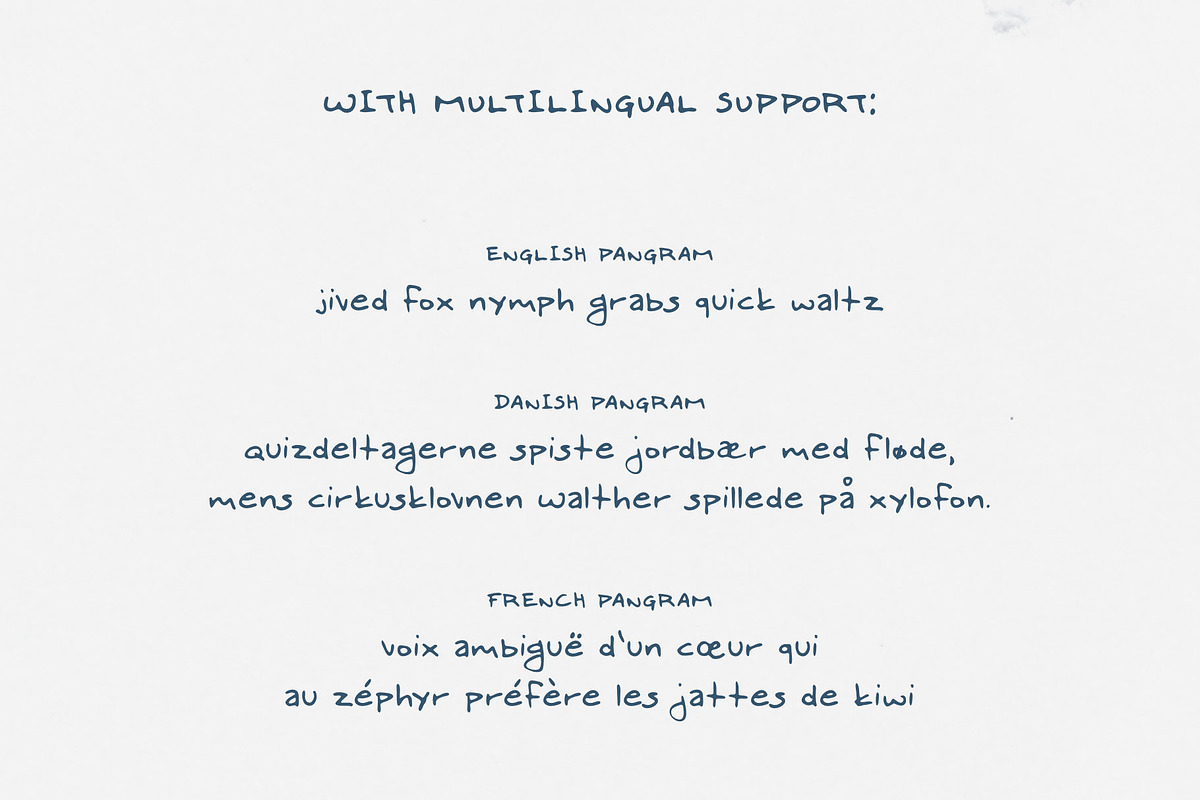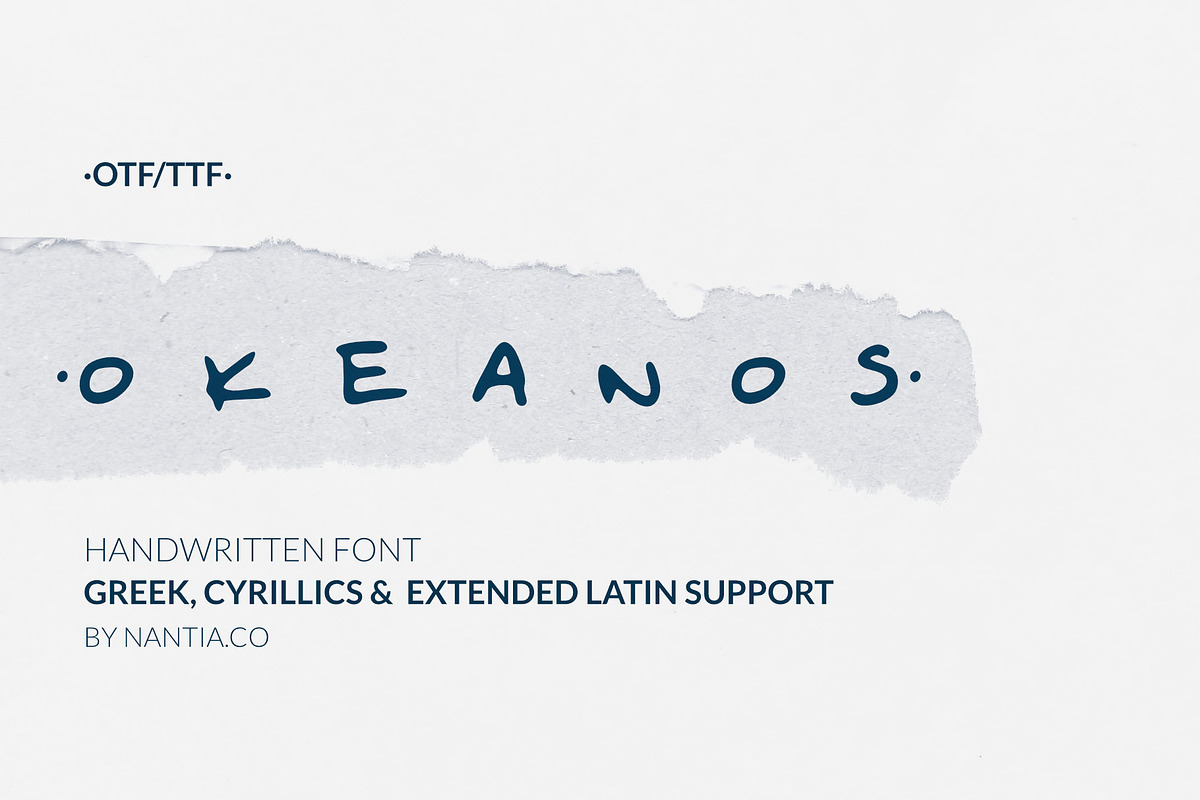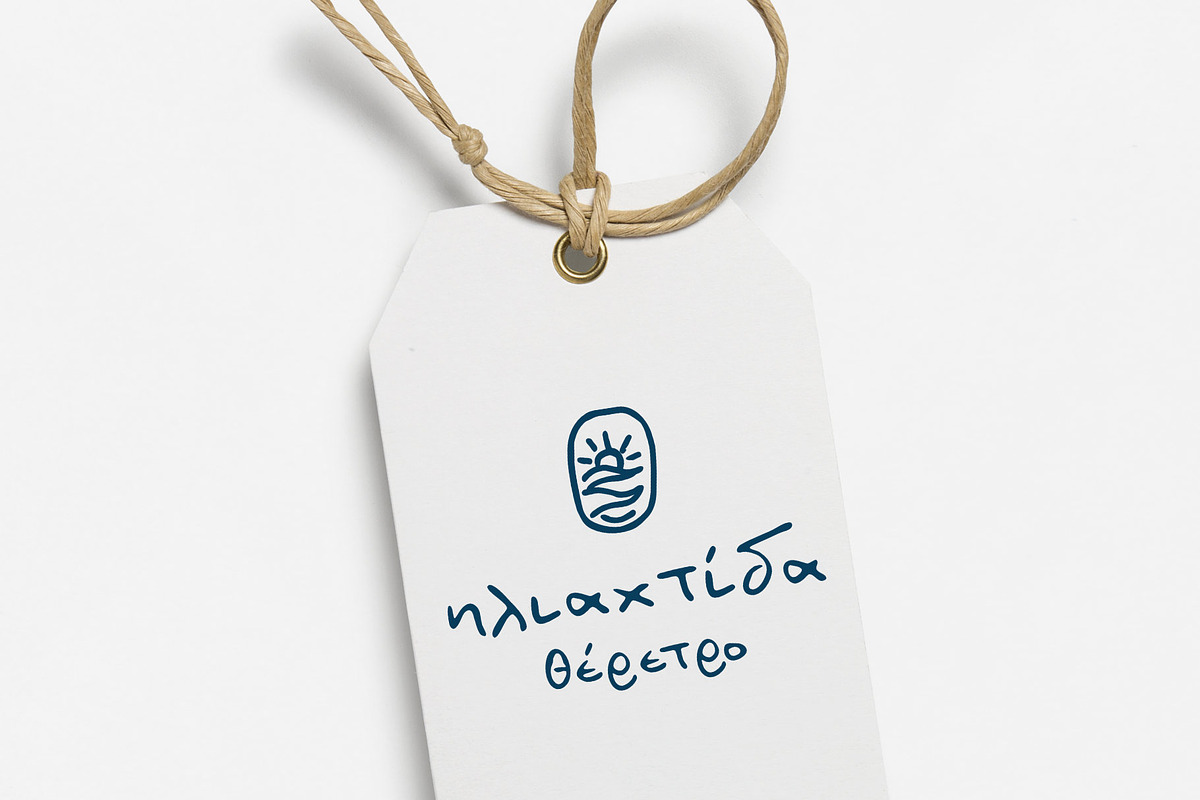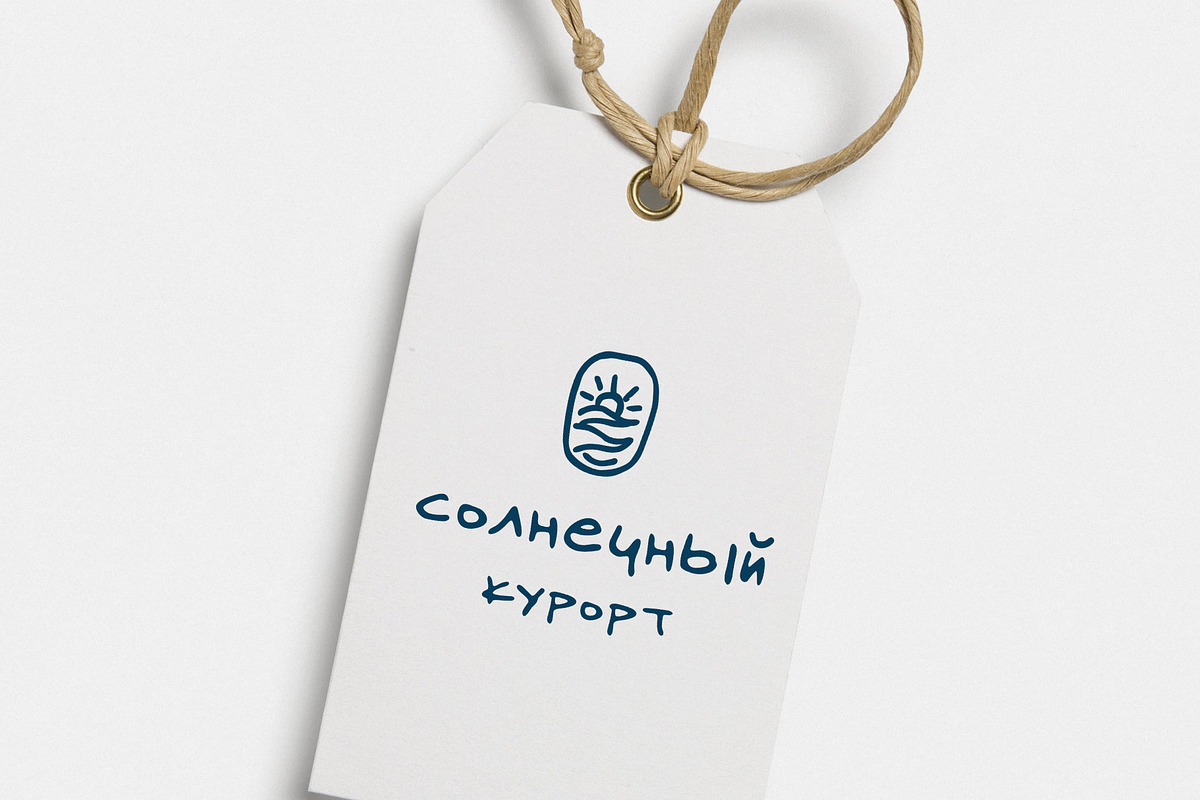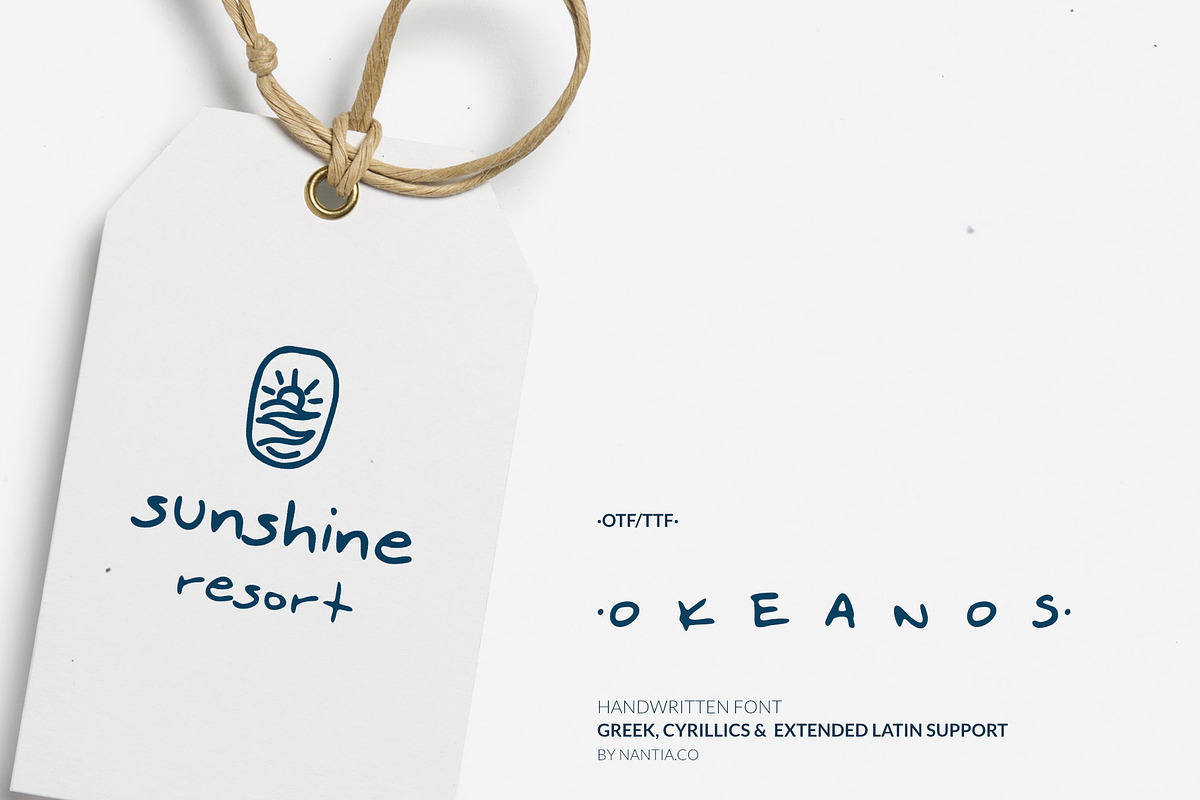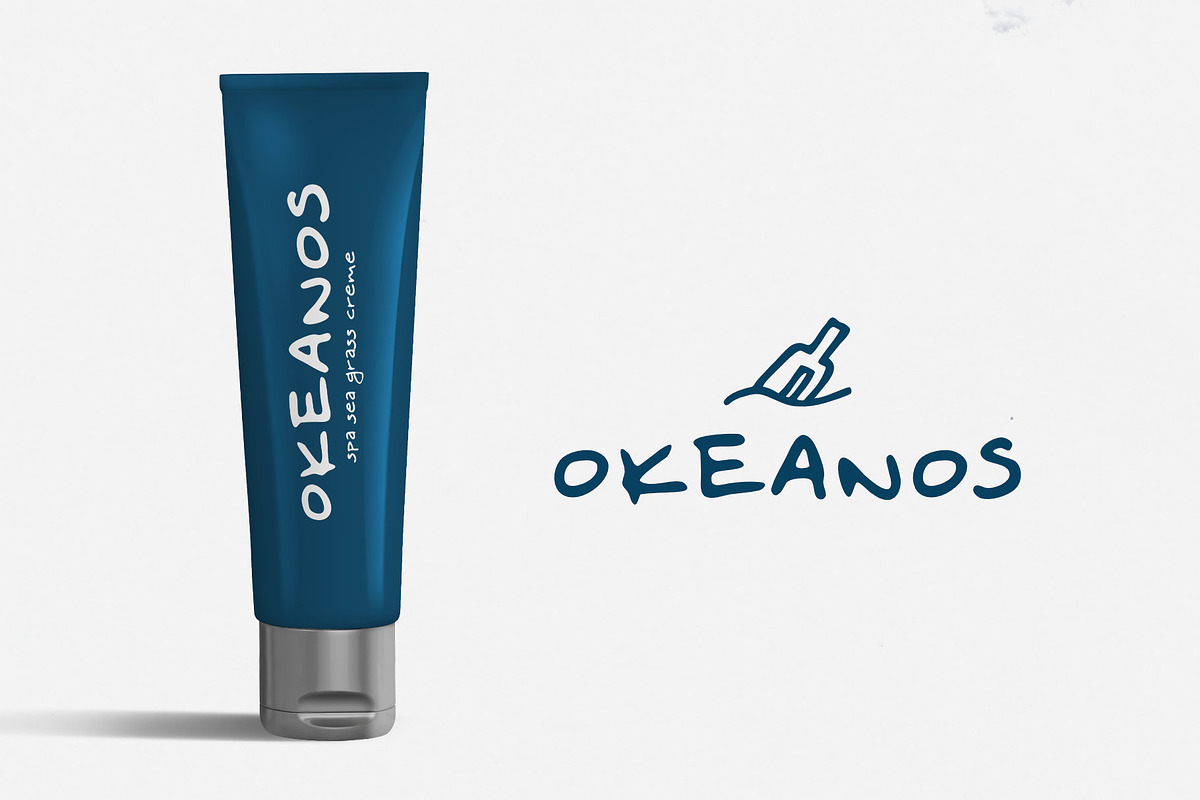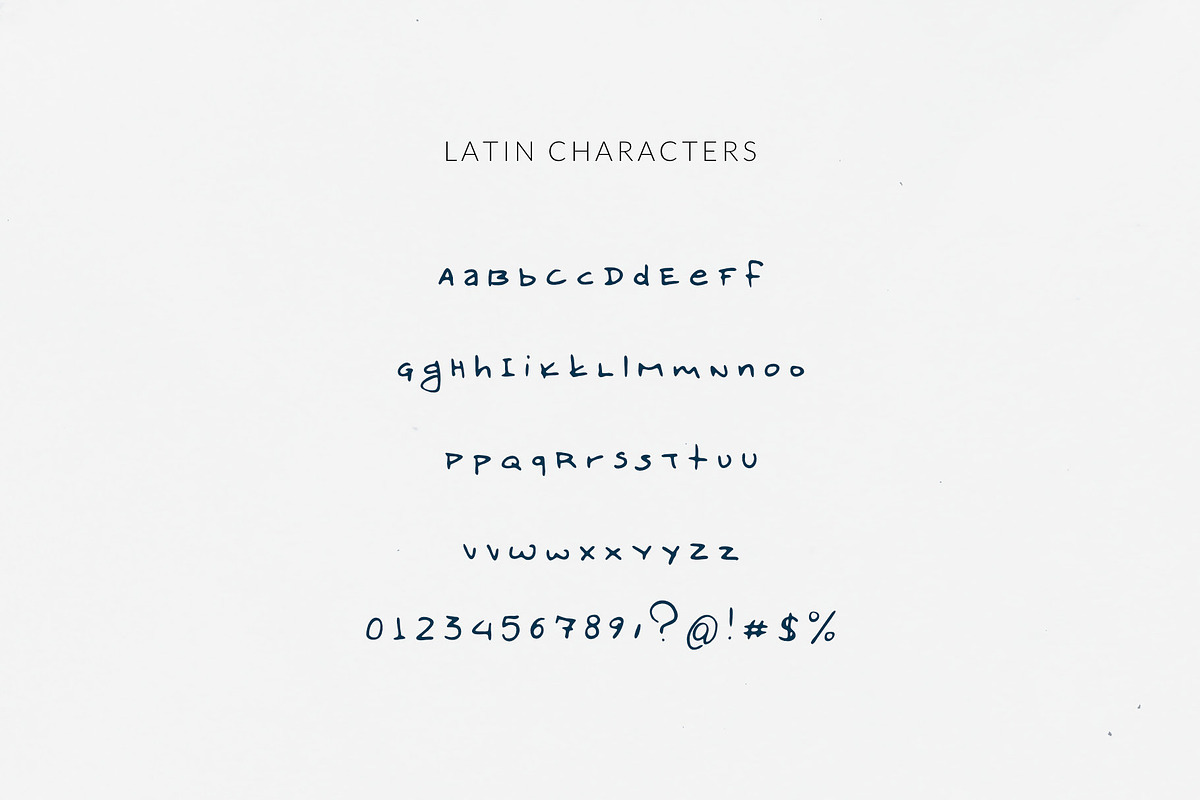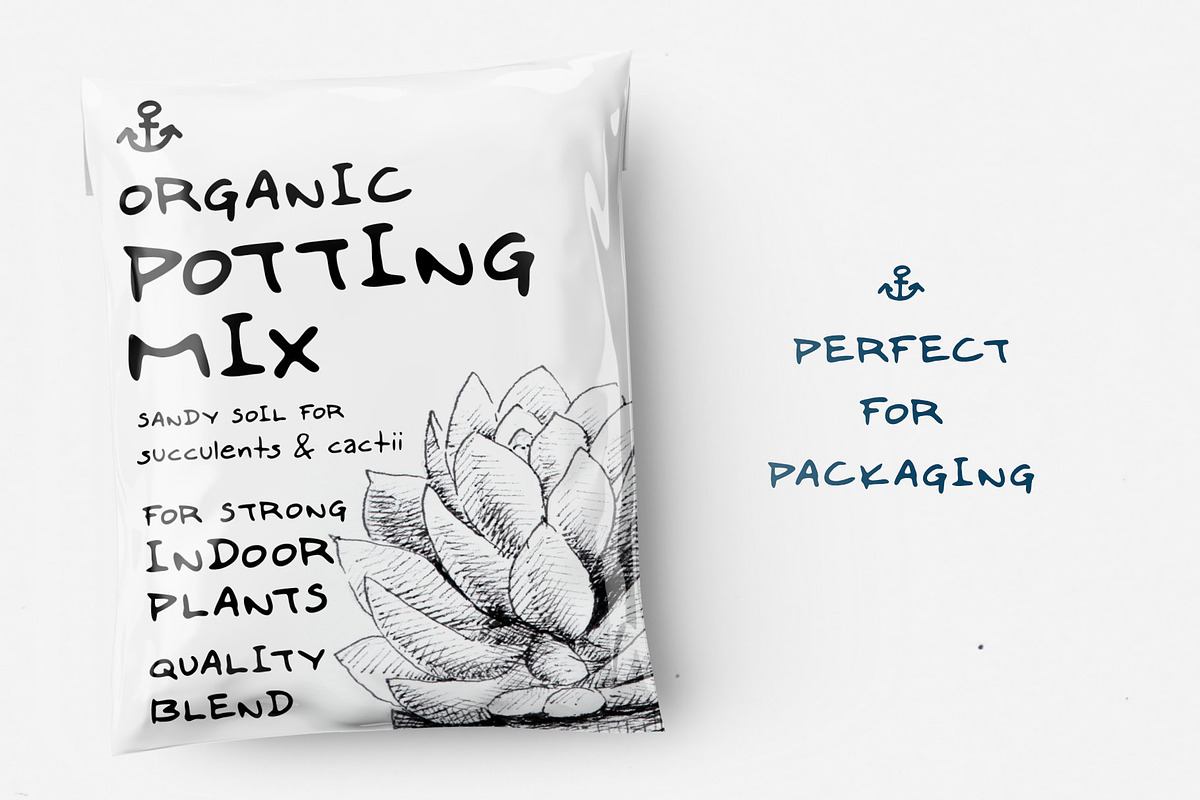
Greek Font Okeanos Handwritten
Okeanos Handwritten Greek Cyrillic Font
Okeanos Handwritten Greek Cyrillic Font is a handwritten display font. 100% handcrafted with a marker, digitized, and turned into a font. Of course, the font supports a full set of Greek characters, Cyrillics, and an extended Latin character set with diacritics. With 10 nautical icons, this typeface can be your next typeface for your graphic design needs.
From “hand-written” quotes to product packaging, merchandise, and branding projects, this font is so easy to use that it can cover them all. Also, it can be used on social media content, for branding, poster design, for “hand-written” quotes and any other kind of product packaging.
Extended Latin Character set
Cyrillic Character set
- Of course, the font supports a full set of Greek characters, Cyrillics, and an extended Latin character set with diacritics.